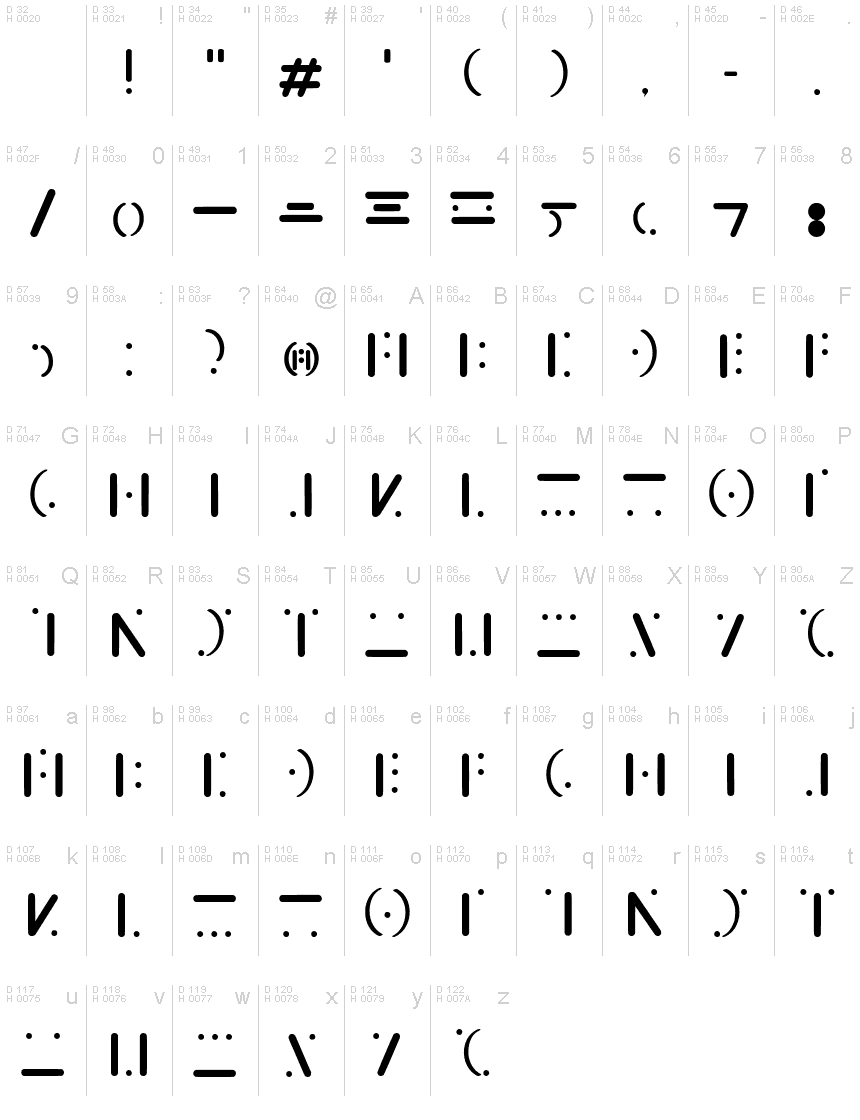
Galactic Media Regular
Originally, this font was created for a manga that is in development. So this typeface belongs more than anything to this story, aureus graphers. I hope you read it and understand the background of it.